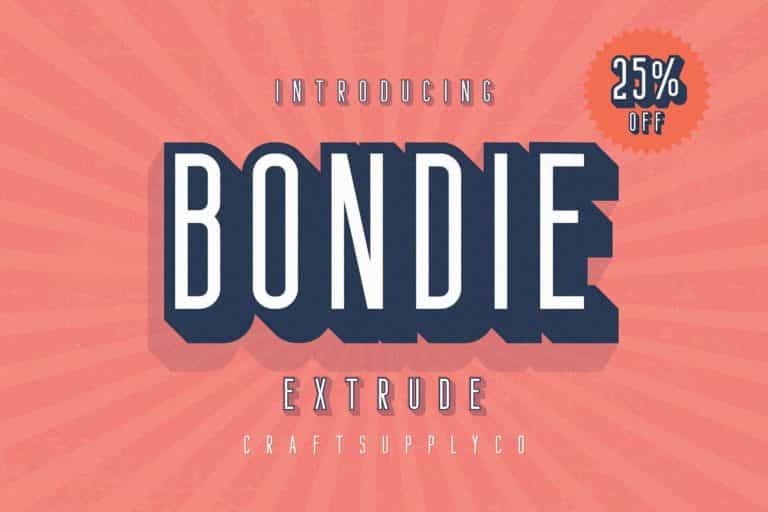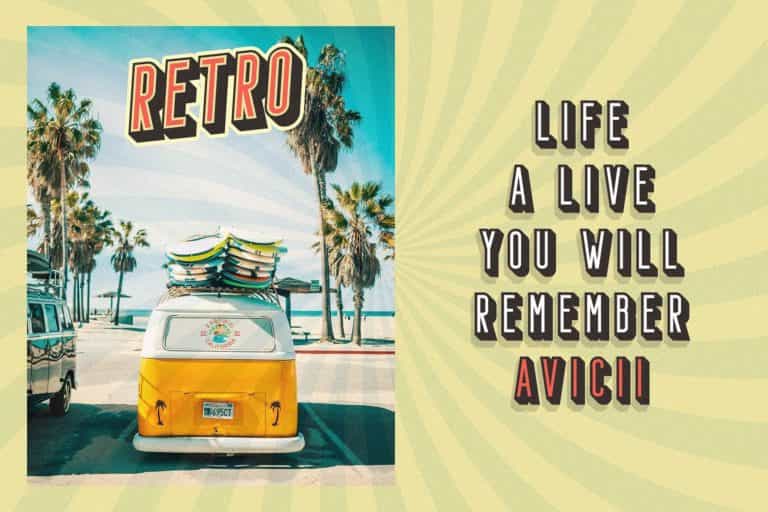
Bondie Extrude Font
Introducing Bondie Font. Bondie Extrude is a Sans Serif style display font in 4 layers, he was the result of a Retro American and European bold Sans Serif lettering for advertising exploration. is a visually appealing modern typeface made from scratch with totally new, livelier details – and with layerable versions for chromatic application.